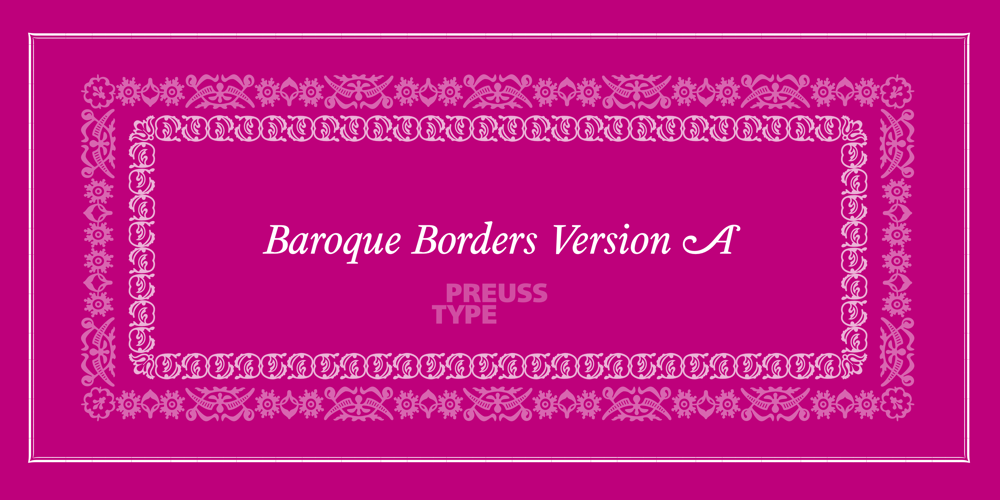
Baroque Borders A
Baroque Borders A font
Baroque Borders A Font Family was designed by Ingo Preuss and published by preussTYPE. Baroque Borders A contains 1 styles and family package options. PT Baroque Borders A is a baroque ornament-font for borders. Especially in combination with Fleischmann Gotisch you can made very impressive greeting cards, wedding invitations or decorative certificates.